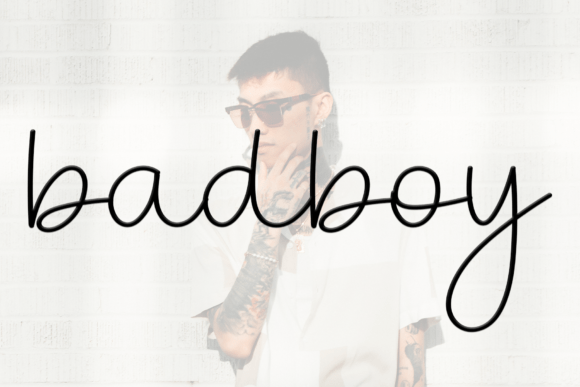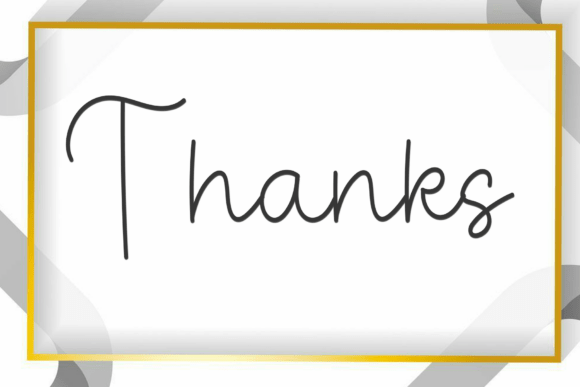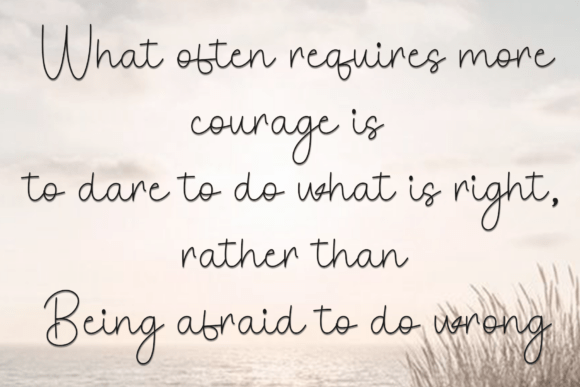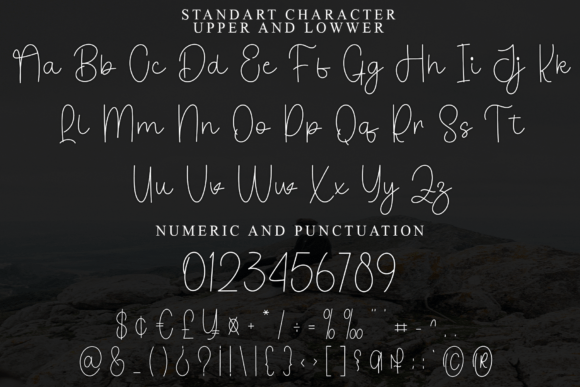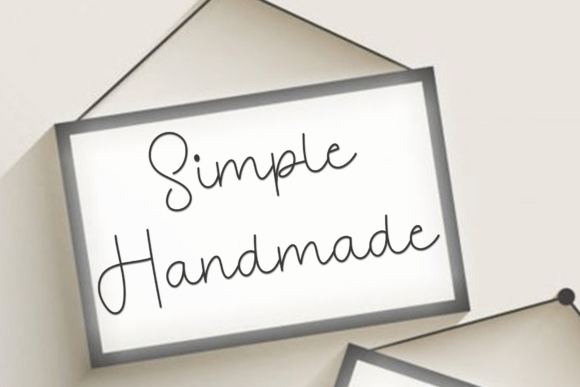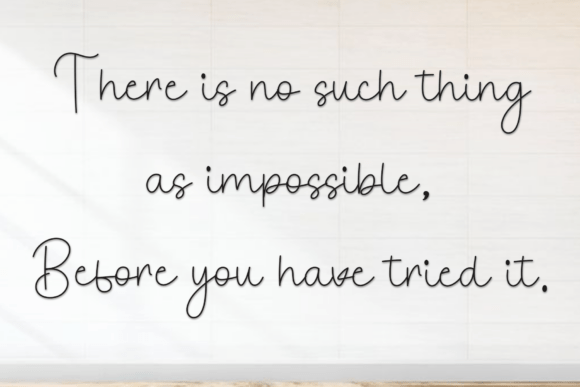
Introducing Birthday Font: The Ultimate Festive Typeface for Your Holiday Designs
Are you looking for a font that captures the essence of the holiday season? Do you want to add a touch of magic to your designs, greeting cards, and gift tags? Look no further than Birthday Font, a festive and merry typeface that’s perfect for bringing cheer and nostalgia to your projects.
The Spirit of the Holiday Season in a Font
Birthday Font is a decorative typeface that’s specifically designed to evoke the spirit of the holiday season. With its whimsical flair and enchanting elements, this font is sure to add a touch of wonder to your designs. Whether you’re creating holiday-themed projects, greeting cards, or gift tags, Birthday Font is the perfect choice.
- Decorative Elements: Birthday Font features decorative elements that are sure to add a touch of festivity to your designs. From snowflakes to holly leaves, this font has everything you need to create magical holiday-themed projects.
- Whimsical Flair: This font has a whimsical flair that’s perfect for creating designs that are fun, playful, and full of personality.
- Perfect for Holiday Projects: Whether you’re creating greeting cards, gift tags, or holiday-themed projects, Birthday Font is the perfect choice. This font is sure to bring a cheerful and nostalgic ambiance to your words.
Why Choose Birthday Font?
There are many fonts to choose from, but Birthday Font stands out from the rest. Here are just a few reasons why:
- Unique and Eye-Catching: Birthday Font is a unique and eye-catching typeface that’s sure to grab attention. With its decorative elements and whimsical flair, this font is perfect for creating designs that stand out from the crowd.
- Perfect for Designers and Crafters: Birthday Font is perfect for designers and crafters who want to add a touch of magic to their projects. Whether you’re creating holiday-themed designs, greeting cards, or gift tags, this font is sure to bring a cheerful and nostalgic ambiance to your words.
Tips and Tricks for Getting the Most Out of Birthday Font
Here are a few tips and tricks for getting the most out of Birthday Font:
- Experiment with Different Sizes and Colors: Don’t be afraid to experiment with different sizes and colors. This will help you find the perfect look for your design.
- Use the Font’s Decorative Elements: The font’s decorative elements are one of its best features. Use them to add a touch of festivity to your designs.
- Pair the Font with Other Fonts: Birthday Font pairs well with other fonts. Experiment with different font combinations to find the perfect look for your design.
Birthday Font is a festive and merry typeface that’s perfect for bringing cheer and nostalgia to your designs. With its decorative elements and whimsical flair, this font is sure to add a touch of magic to your holiday-themed projects. Whether you’re a designer or crafter, Birthday Font is the perfect choice for anyone looking to create designs that are fun, playful, and full of personality.